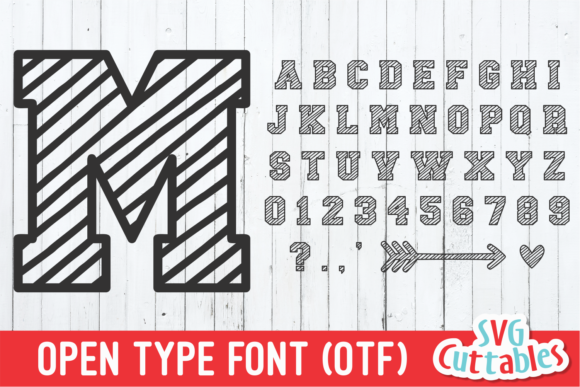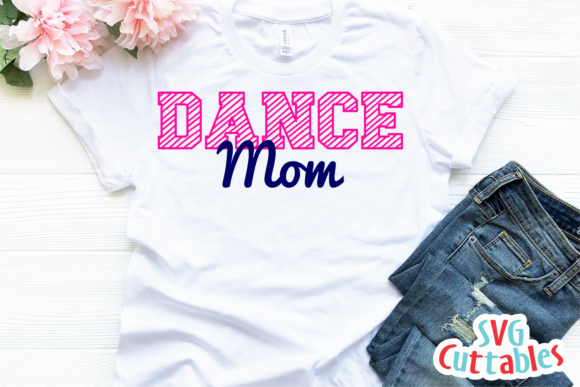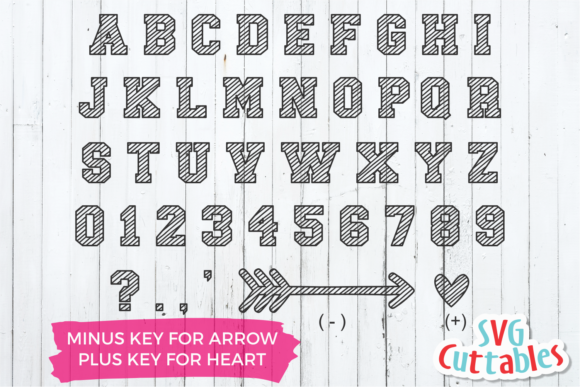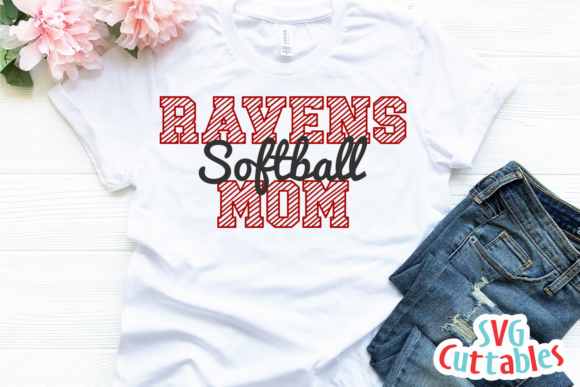
JP Scribble Font Font
About the JP Scribble Font Font
Presenting JP Scribble Font Font, a unique and stylish typeface that will make your work stand out. Dance Mom is a bold and incredibly assertive slab serif font. Whether you’re using it for crafts, digital design, presentations, or making greeting cards, this font has the potential to become your favorite go-to font, no matter the occasion!
Its strong, slab-serif forms make it ideal for headlines, short impactful statements, and branding applications where a bold presence is desired. Consider using it for posters, logos, or packaging for products that project confidence and authority. However, avoid using Dance Mom for body text or long paragraphs; its weight and strong character will quickly become fatiguing to read.
The font’s assertive personality pairs well with clean, minimalist sans-serifs like Helvetica or Open Sans for a balanced contrast. For a more playful feel, consider pairing it with a rounded sans-serif such as Bebas Neue or a quirky script font like Pacifico. Avoid pairing it with other heavy or decorative fonts, which will result in visual clutter.
Dance Mom possesses a powerful, authoritative personality. It is best suited for brands and projects conveying strength, confidence, or a sense of modern sophistication.